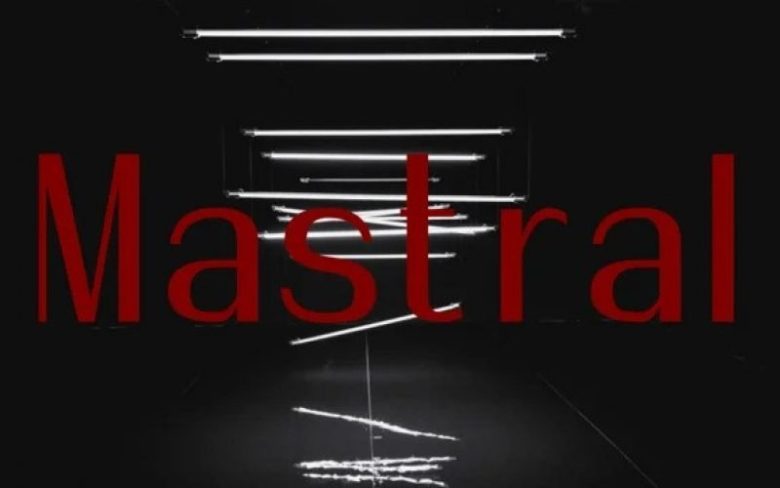
Mastral Font
Mastral Sans Serif Font is an elegant and modern sans serif font with French style. It’s designed and shared by Arief rochman. It’s a serif typeface that is taller and looks elegant. This typeface is designed with a simple shape. Mastral fonts work well in simple themed designs.